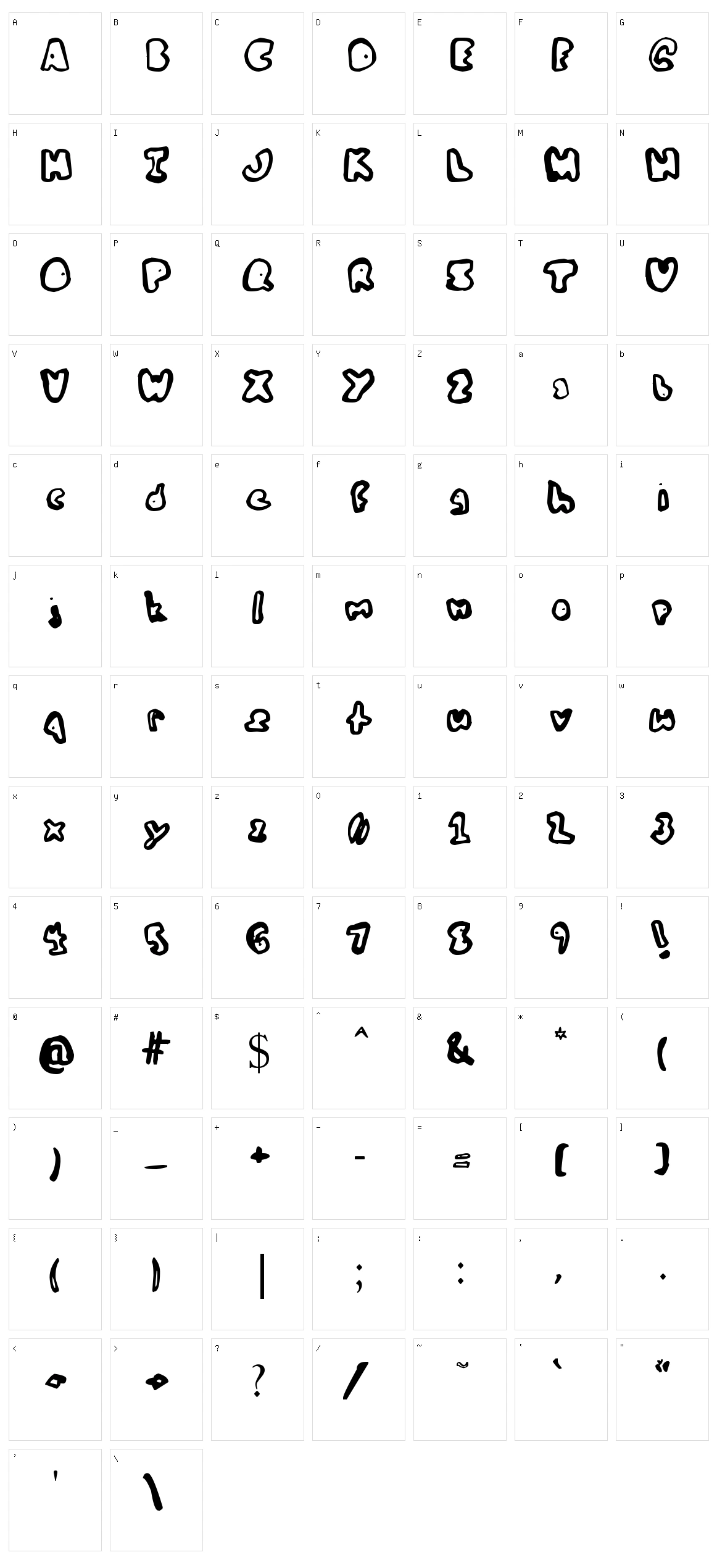
The free font My Bald Friend Fred is carefully designed by Merffle, showcasing a thoughtful balance of creativity and usability and falls under the Cartoon font style. When you download the ZIP file, it contains only 15.45 KB of font files, making it lightweight and quick to download. Please review the license details below to understand permitted usage and distribution rights. If license information is not available, we recommend using this font for personal projects only or contacting the author directly for commercial usage permissions.